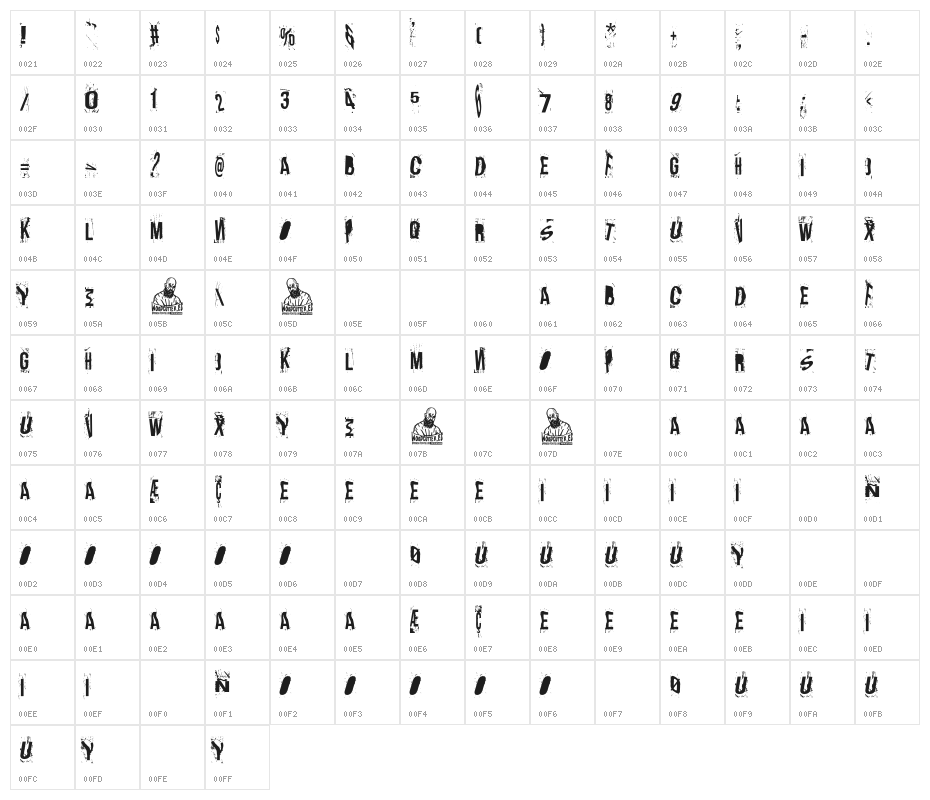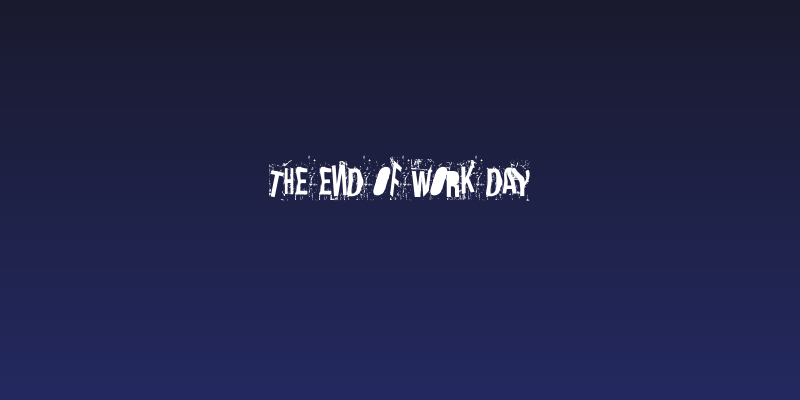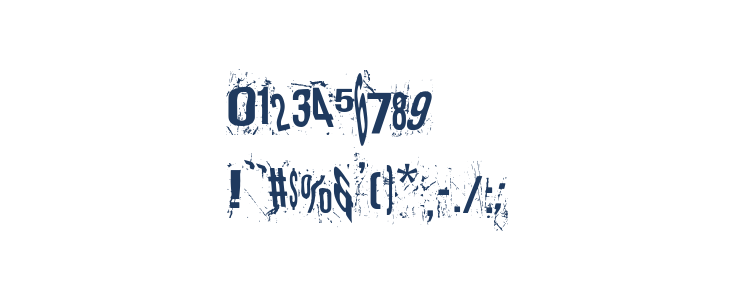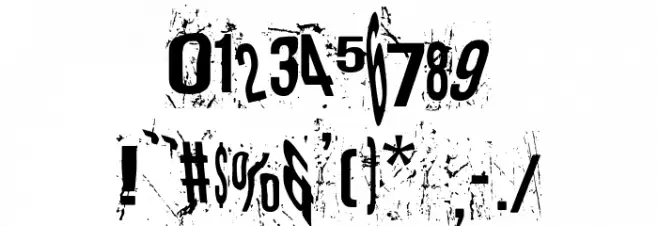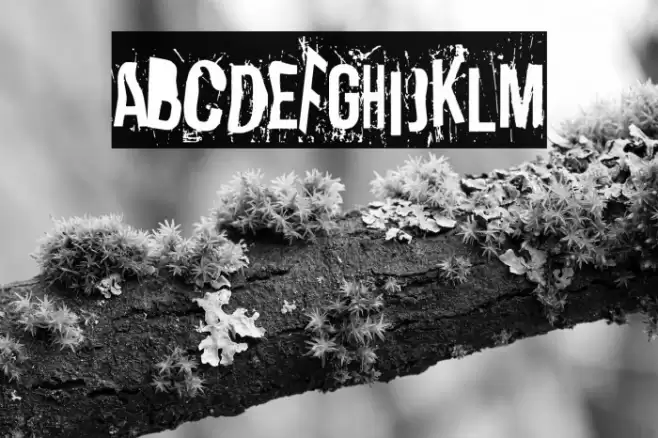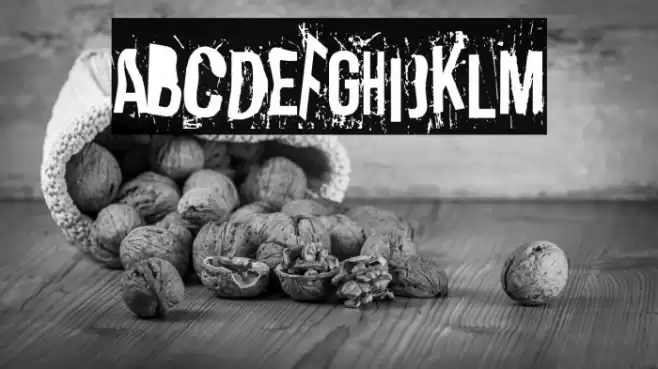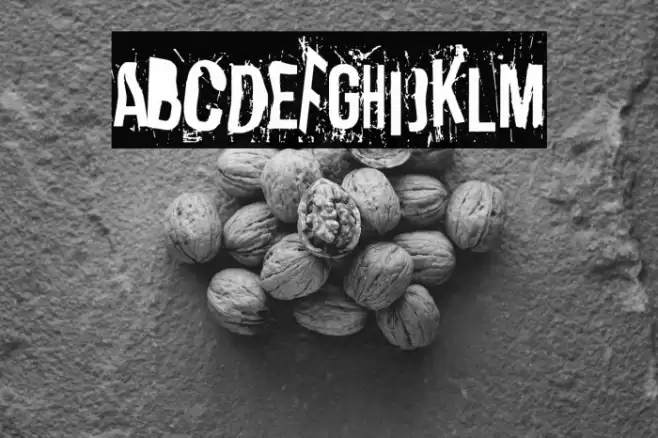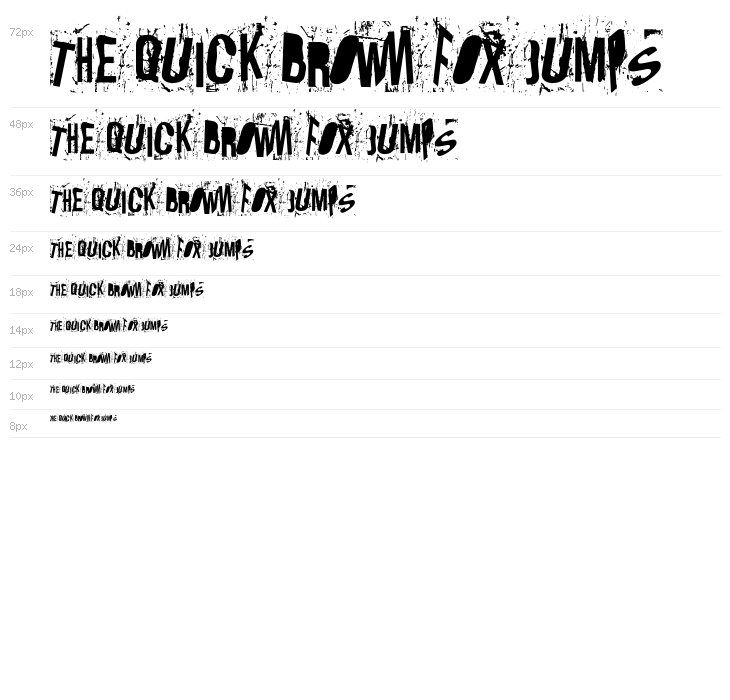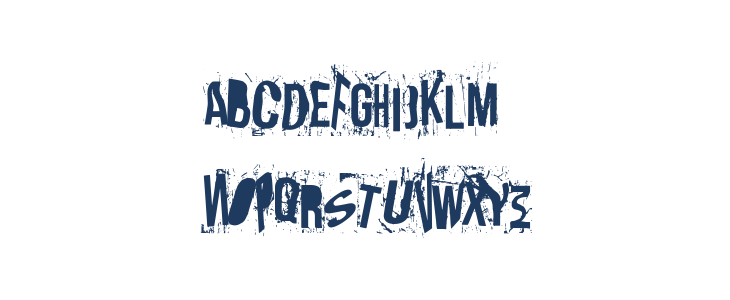
The end of work day Font
The end of work day Description
This font exhibits a distressed and grungy aesthetic, characterized by irregular and jagged edges that give it a raw, edgy appearance. The letters are bold and heavily textured, creating a sense of chaos and movement. The uppercase and lowercase letters maintain a consistent style, with each character appearing as if it has been roughly cut or torn. The numbers and special characters follow the same distressed theme, enhancing the overall rugged look. This font is ideal for projects that aim to convey a sense of rebellion, urban culture, or an alternative lifestyle.
| Overall Style | Grunge, Urban, Edgy |
| Proposed Projects | Album covers, streetwear branding, event posters, graffiti art, and edgy editorial designs. |